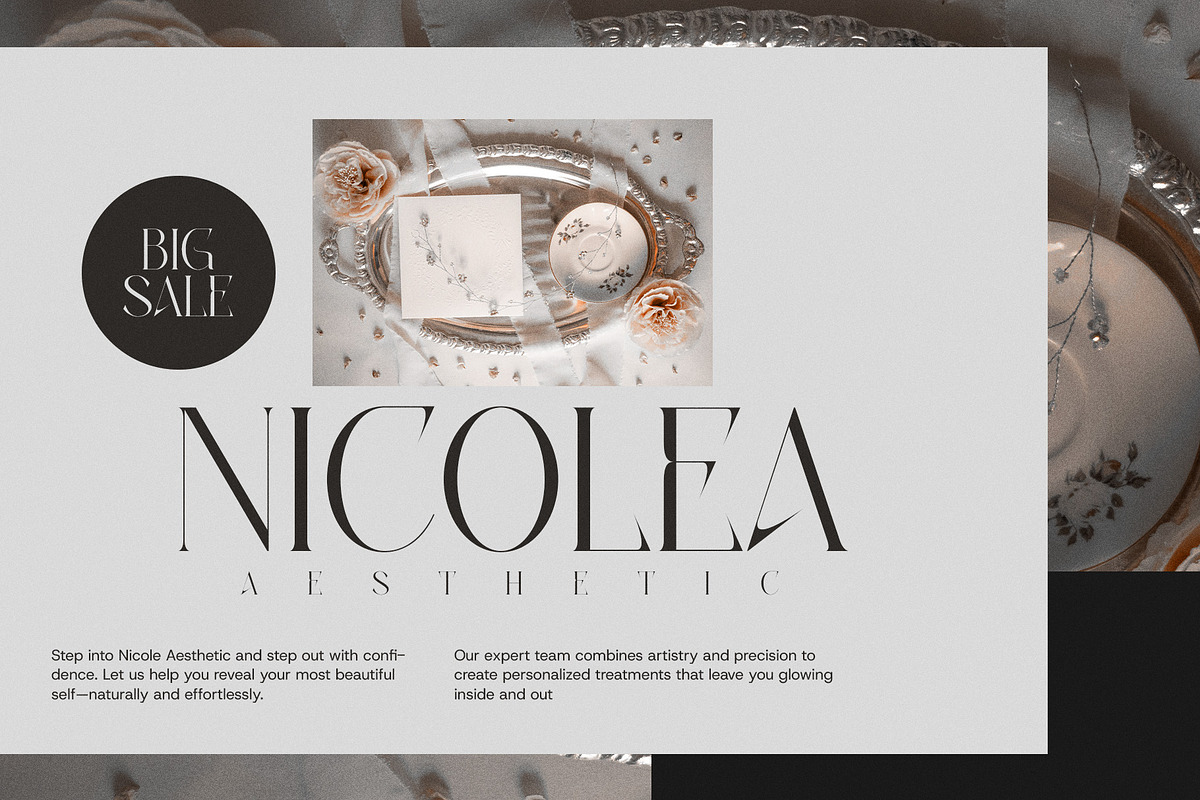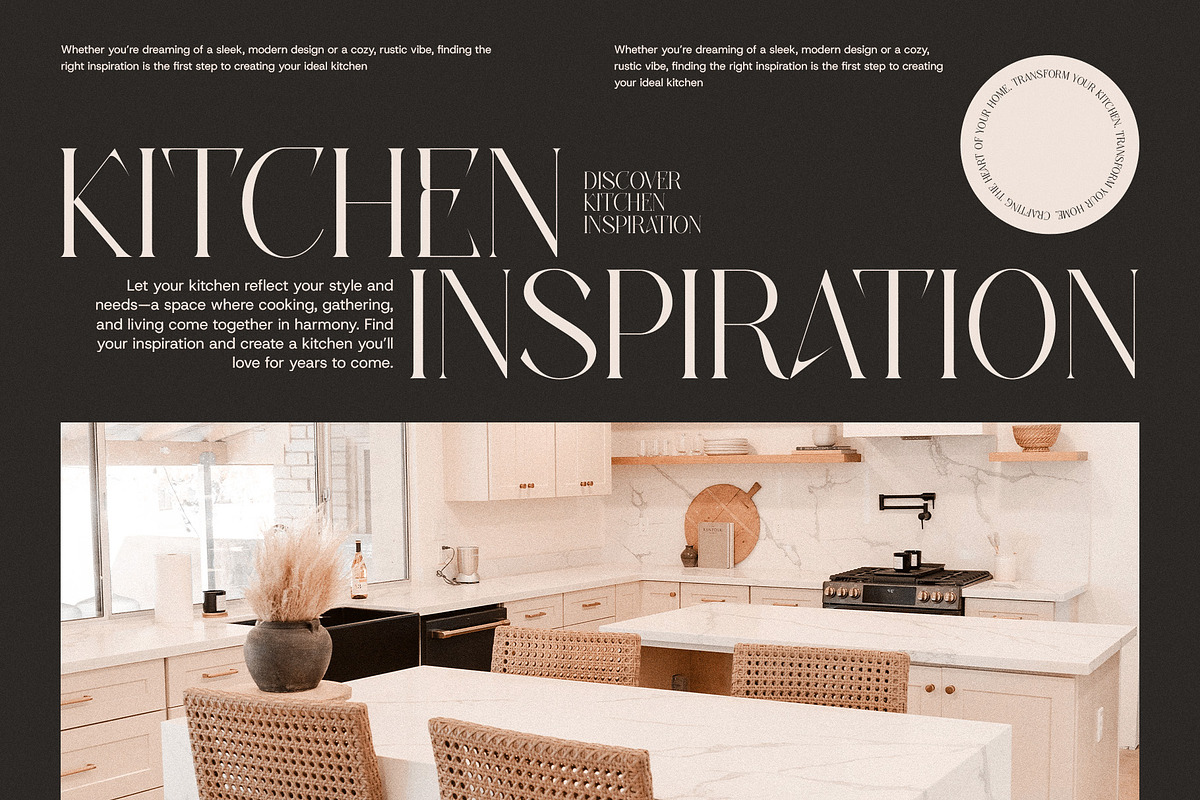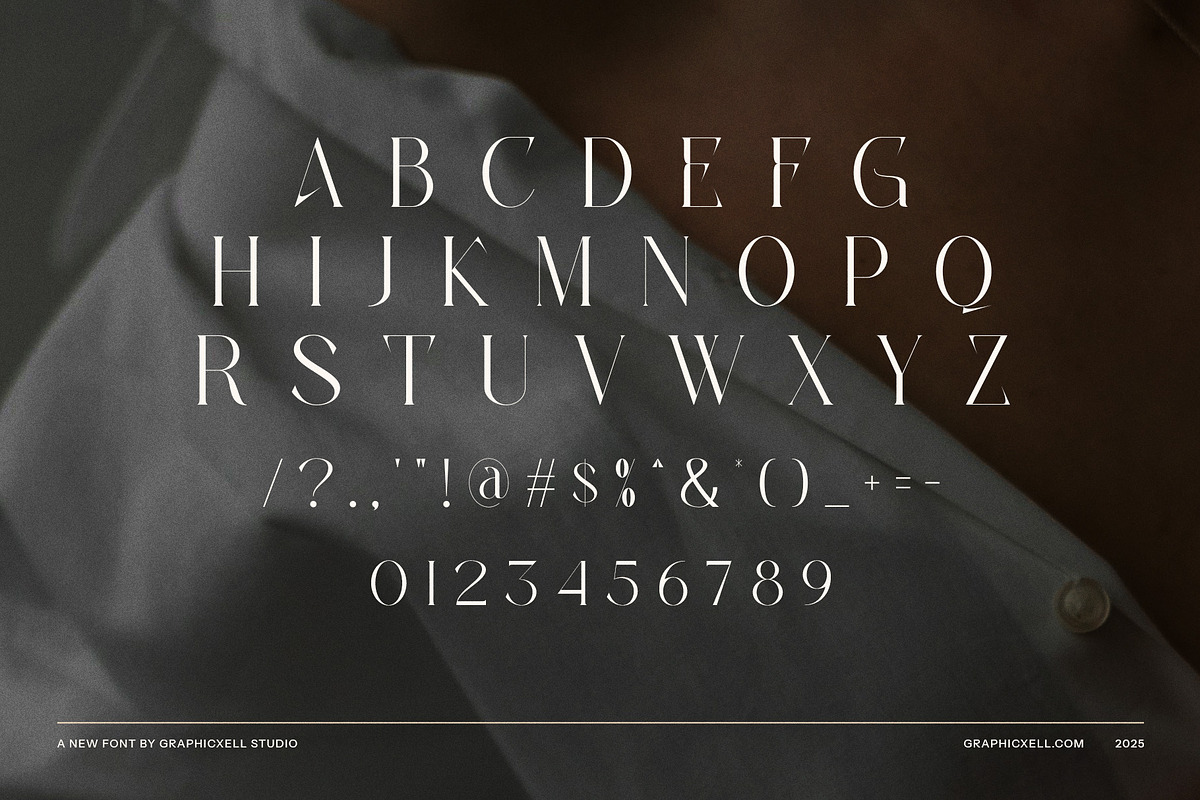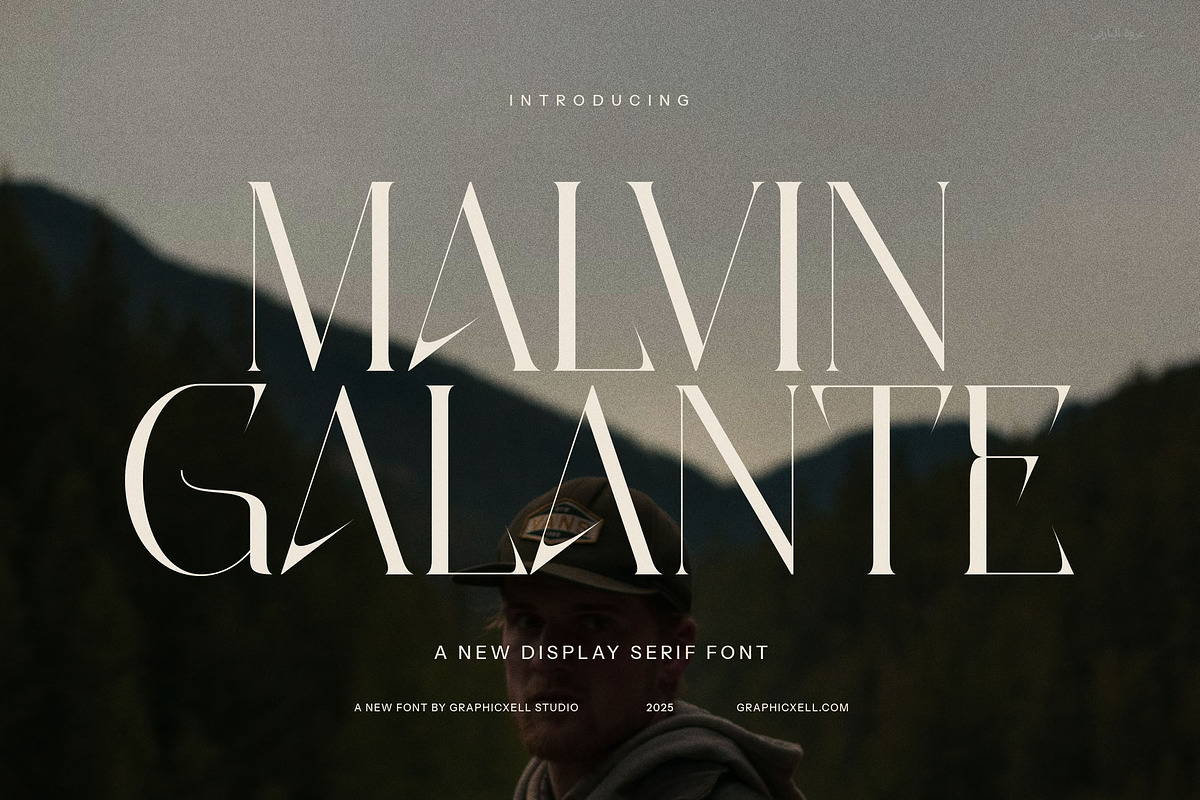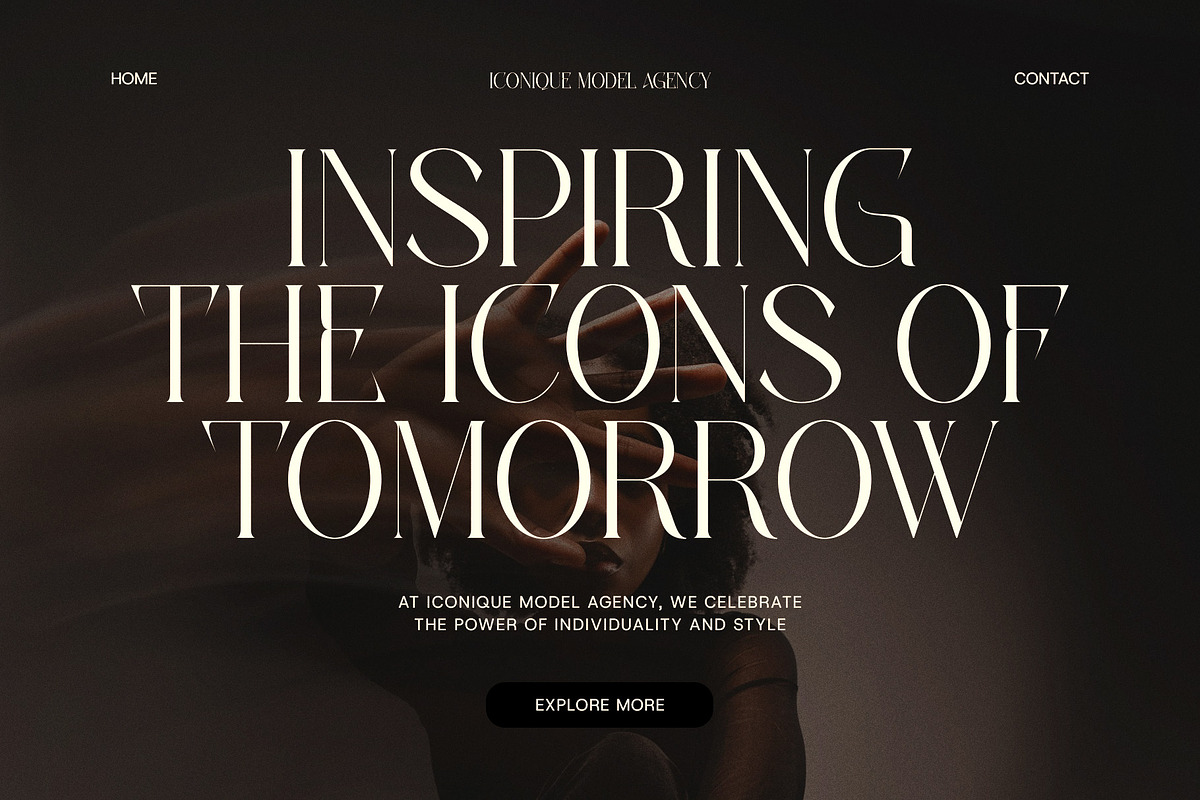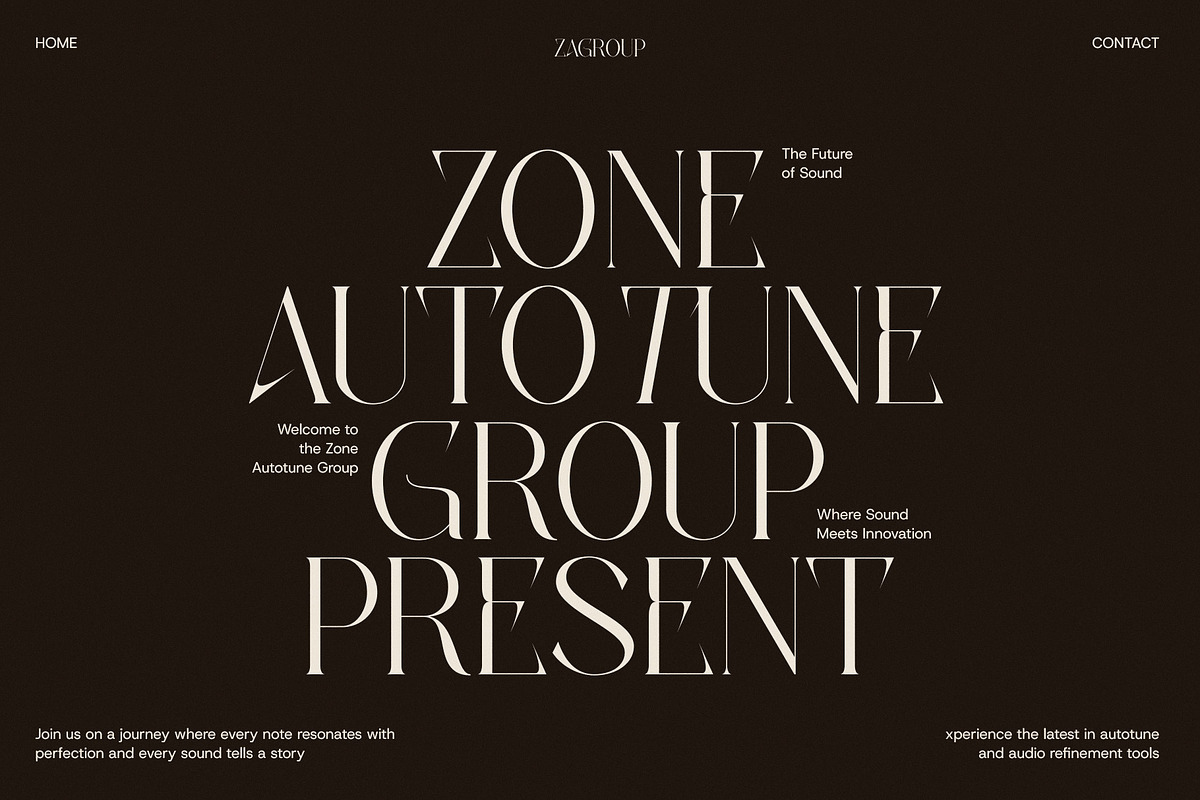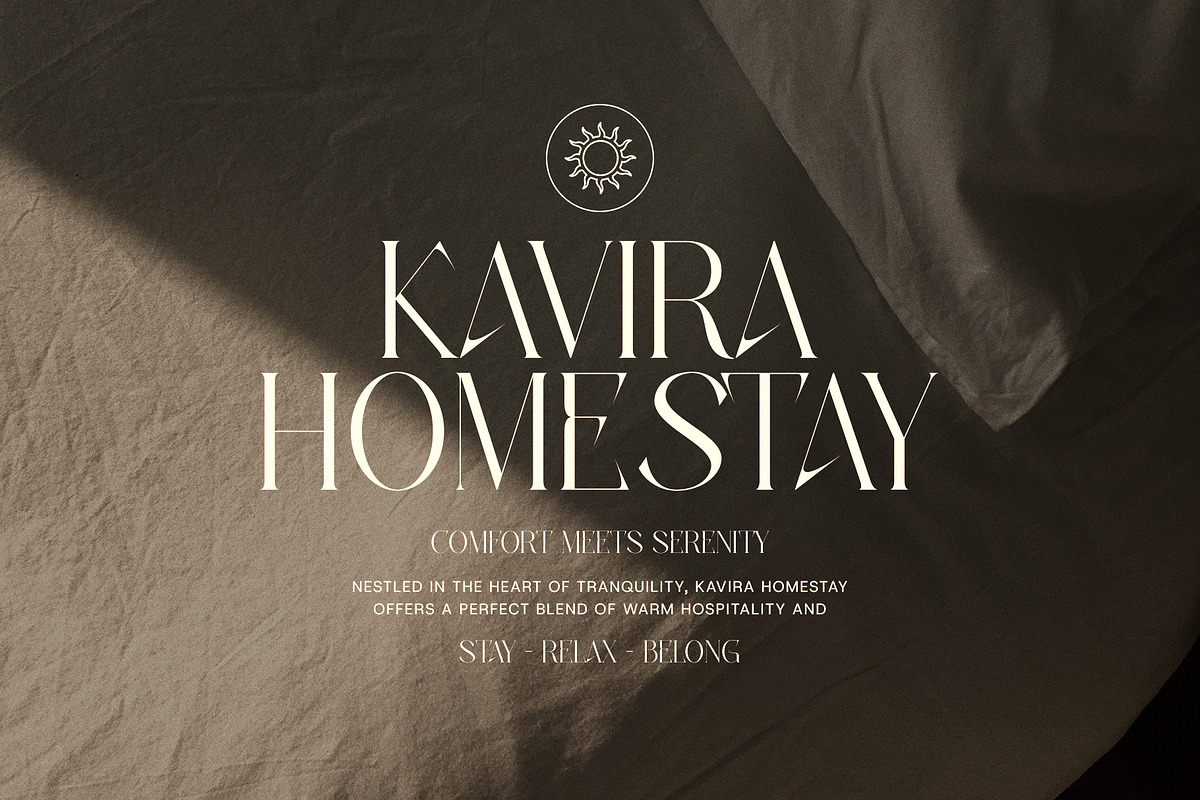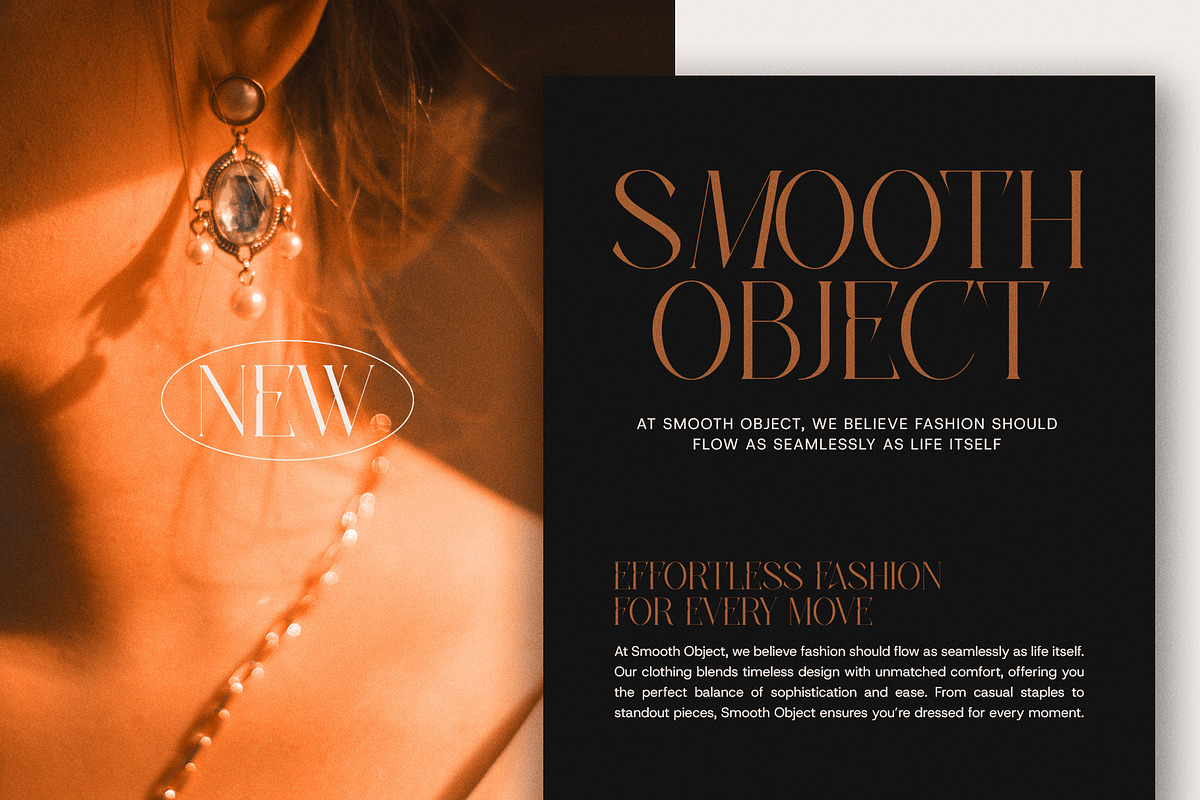
Malvin Galante Elegant Serif Font
Malvin Galante Elegant Serif Font is a modern and luxurious typeface designed to bring sophistication and charm to any creative project. With its refined serifs, graceful curves, and precise details, Malvin Galante strikes the perfect balance between contemporary style and timeless elegance. Its standout feature lies in its unique ligatures and alternate forms, offering a wealth of creative possibilities to make your typography truly distinctive.
Ideal for high-end branding and identity design, Malvin Galante is a perfect fit for luxury logos, premium packaging, and upscale advertisements. Its polished aesthetic communicates professionalism and class, ensuring your brand stands out with an unforgettable impression.
Malvin Galante also shines in editorial design, whether for magazines, layouts, or websites. Its harmonious proportions and excellent readability make it versatile for both bold headlines and intricate body text, giving your content a cohesive and sophisticated appearance.
From boutique branding to gourmet food labels, this font adapts effortlessly across industries. Use it to craft elegant menus, stylish social media graphics, or striking promotional materials that captivate your audience. Its timeless beauty and contemporary versatility make Malvin Galante a trusted choice for designers who demand excellence.
With Malvin Galante Elegant Serif Font, every design becomes a statement of taste and creativity. Elevate your projects with its blend of modern sophistication and artistic flair, and let its unique features transform your typography into a masterpiece.